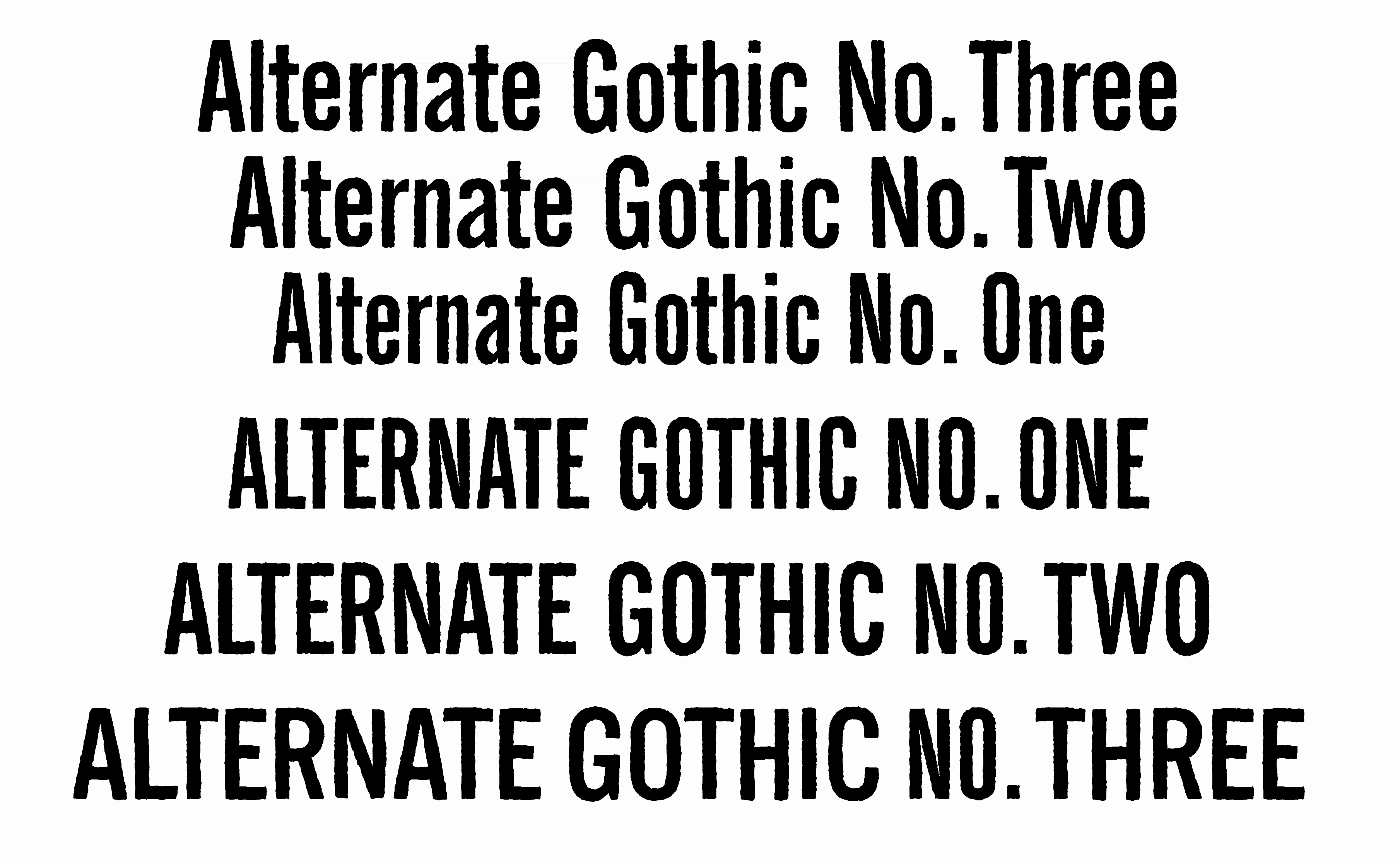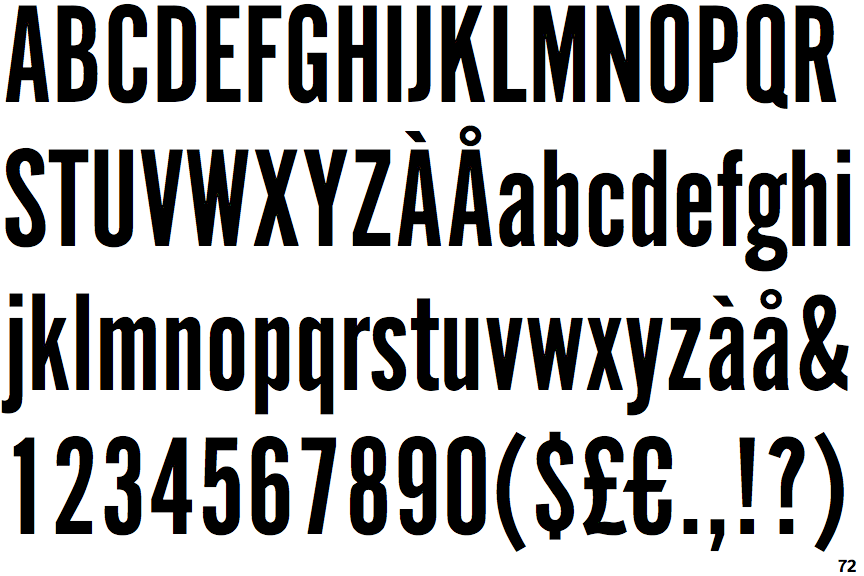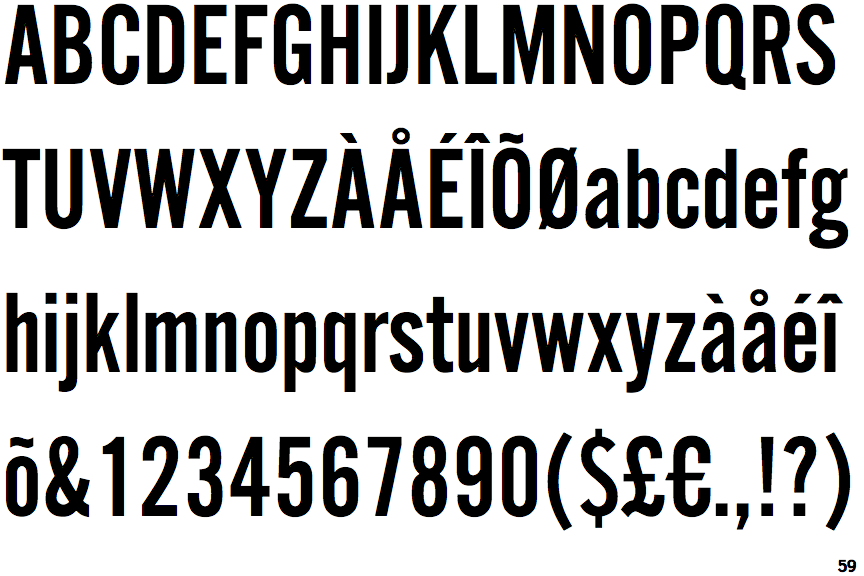
Alternate Fonts. Find fonts that are similar in appearance to a specified font. Explore atf alternate gothic available at adobe fonts.
(these categories closely mirror those in the opentype panel.) ¨it includes a light version, a extrafilled version for 2.0 style fat borders, and an alternate version with a lot of style changes. All three weights of alternate gothic are bold and narrow.
From there, view the submenus, investigating categories of glyphs you might be interested in. It was basically created as a condensed version of benton’s franklin gothic. Alternate gothic font family | linotype.com.
Alternate Gothic No 2 Is The Perfect Font For All Your Fun Designs.